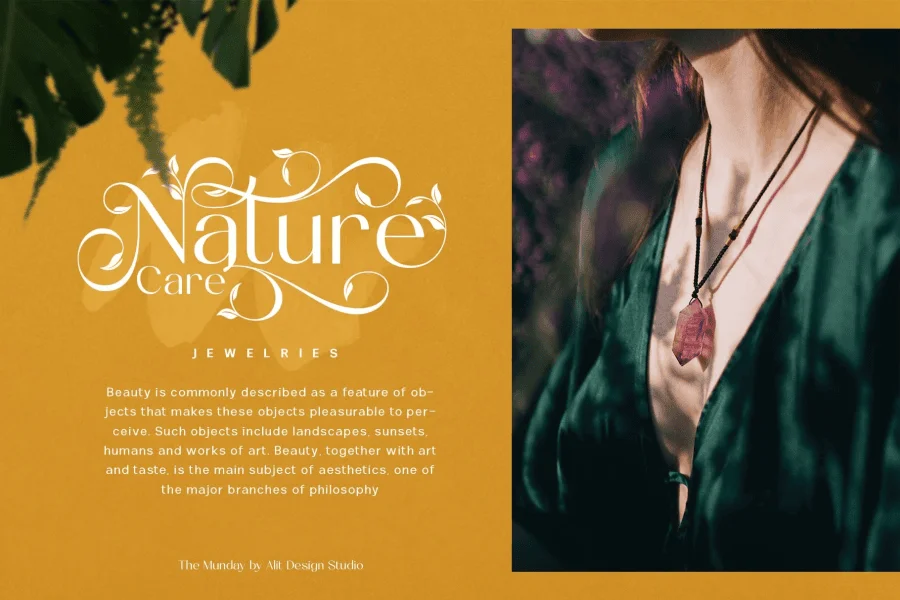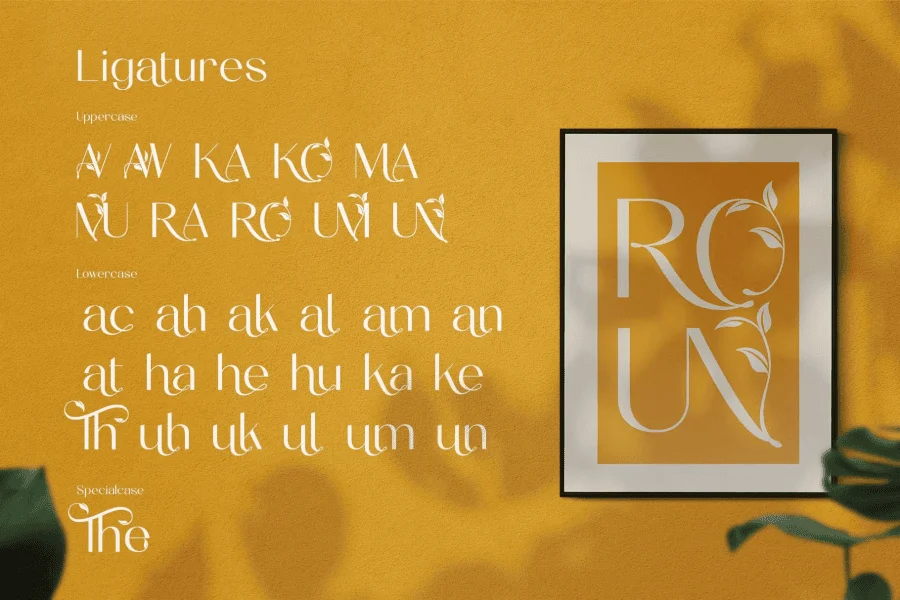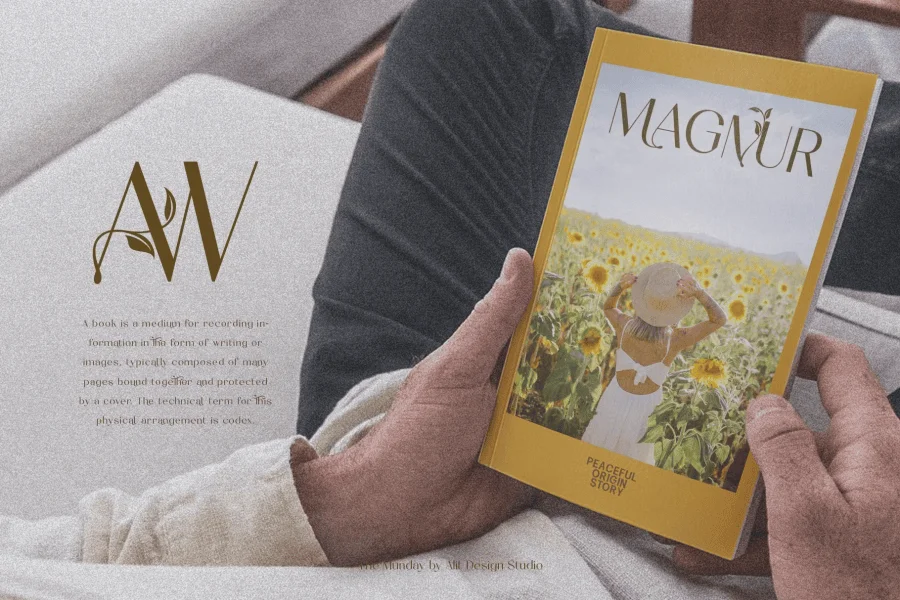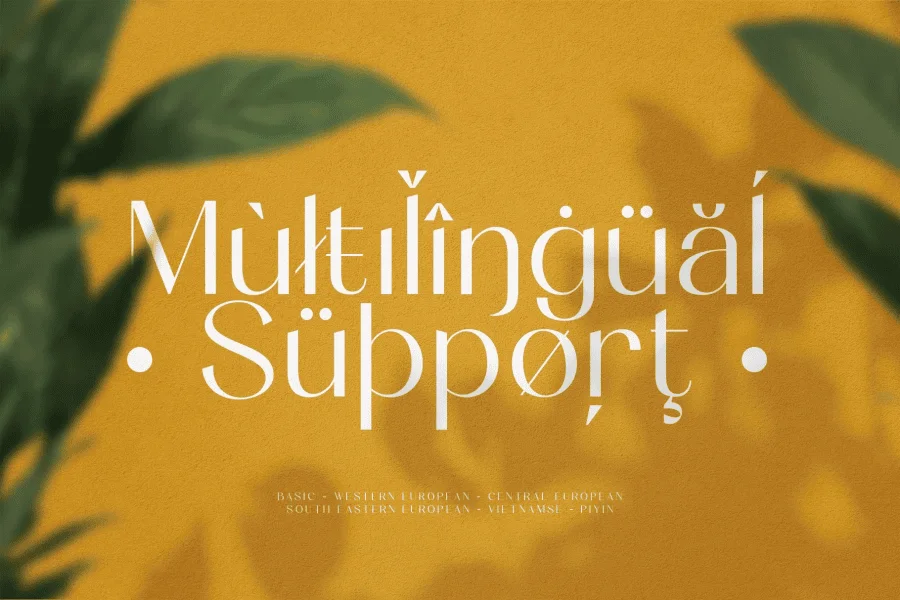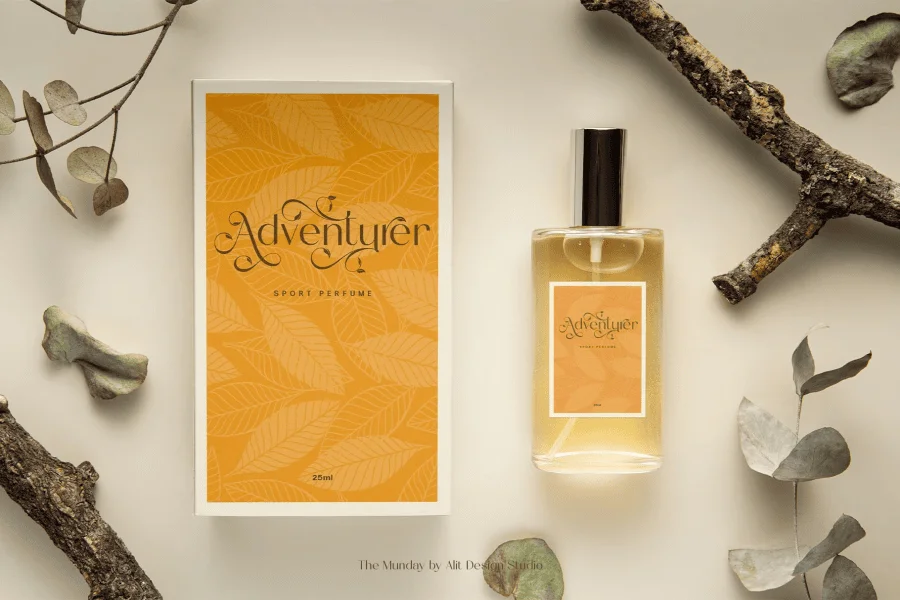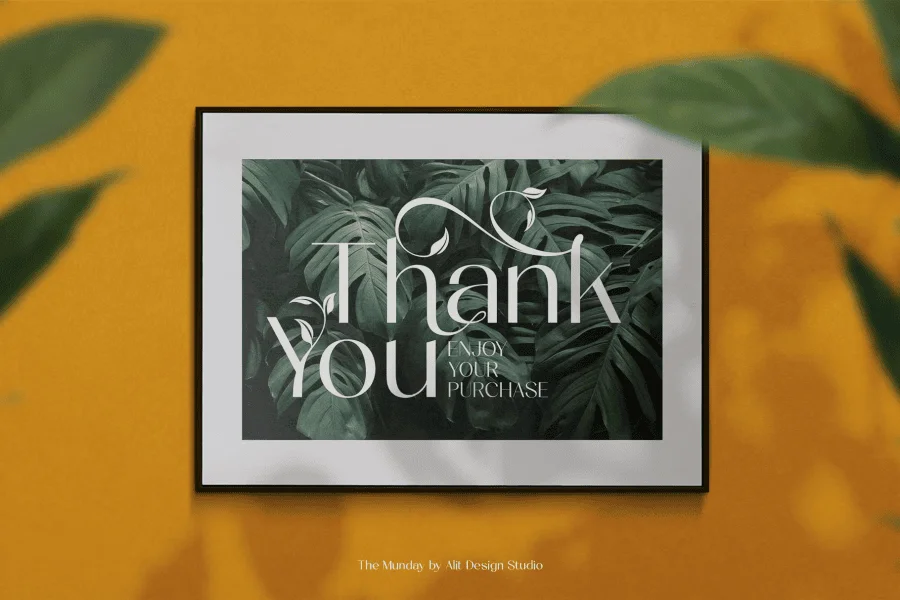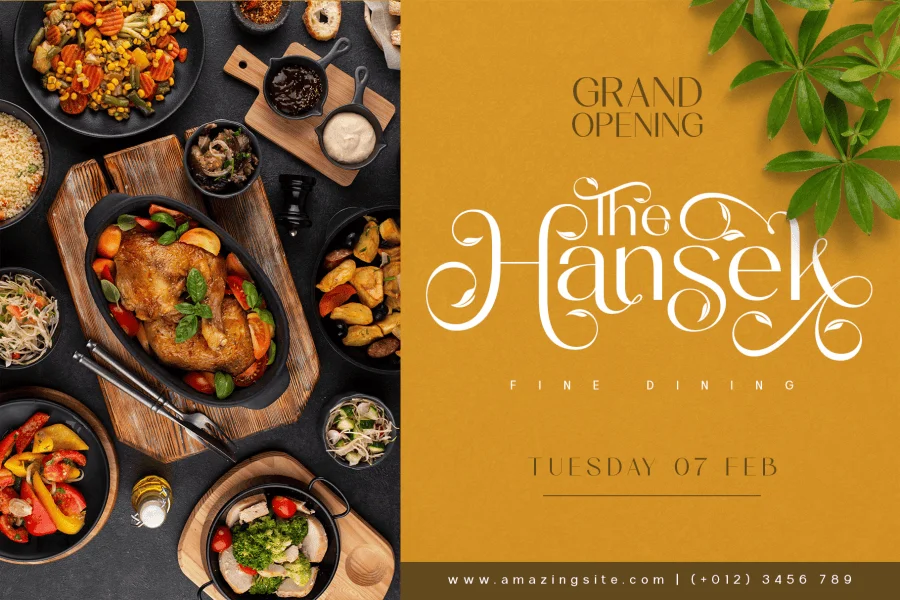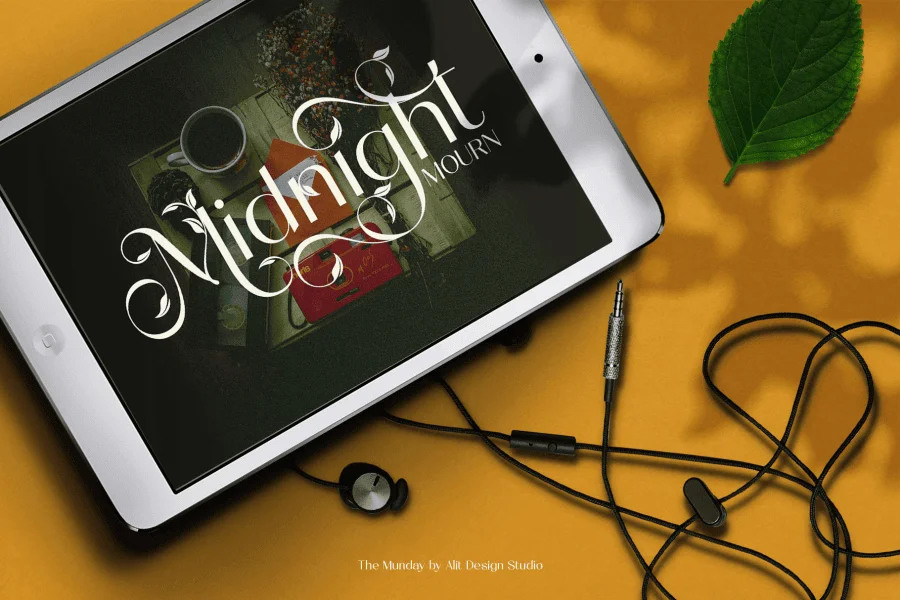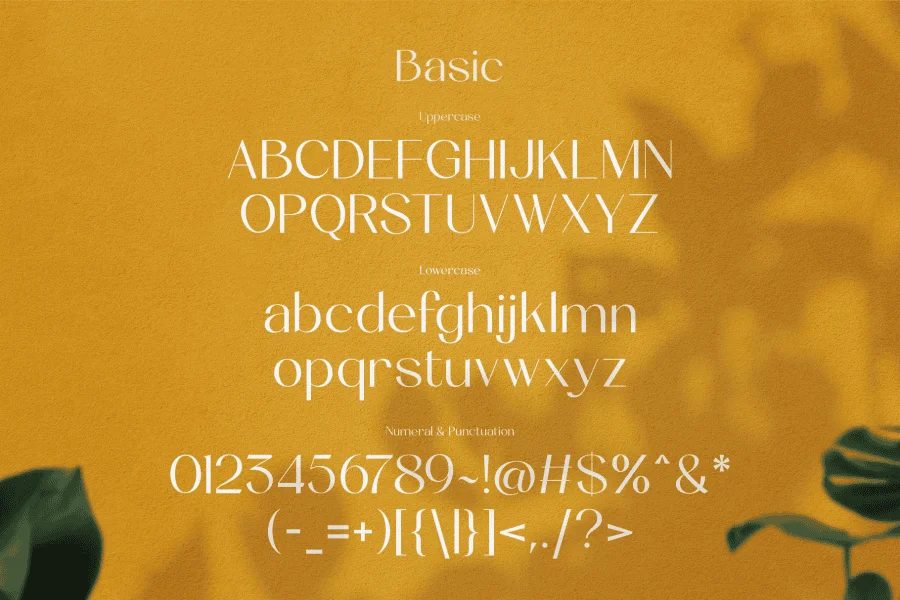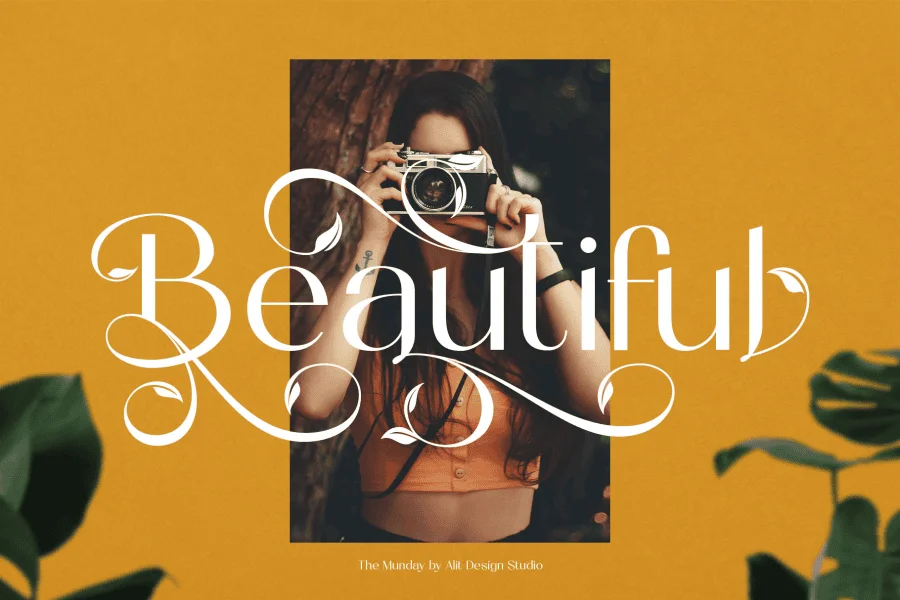
The Munday is a sans serif font that features a nature concept with leaf swashes. It has a modern and clean design that can be used for various design projects such as branding, titles, logos, and more. Its leaf swashes give it a unique and playful touch, making it suitable for projects with a nature or organic theme.